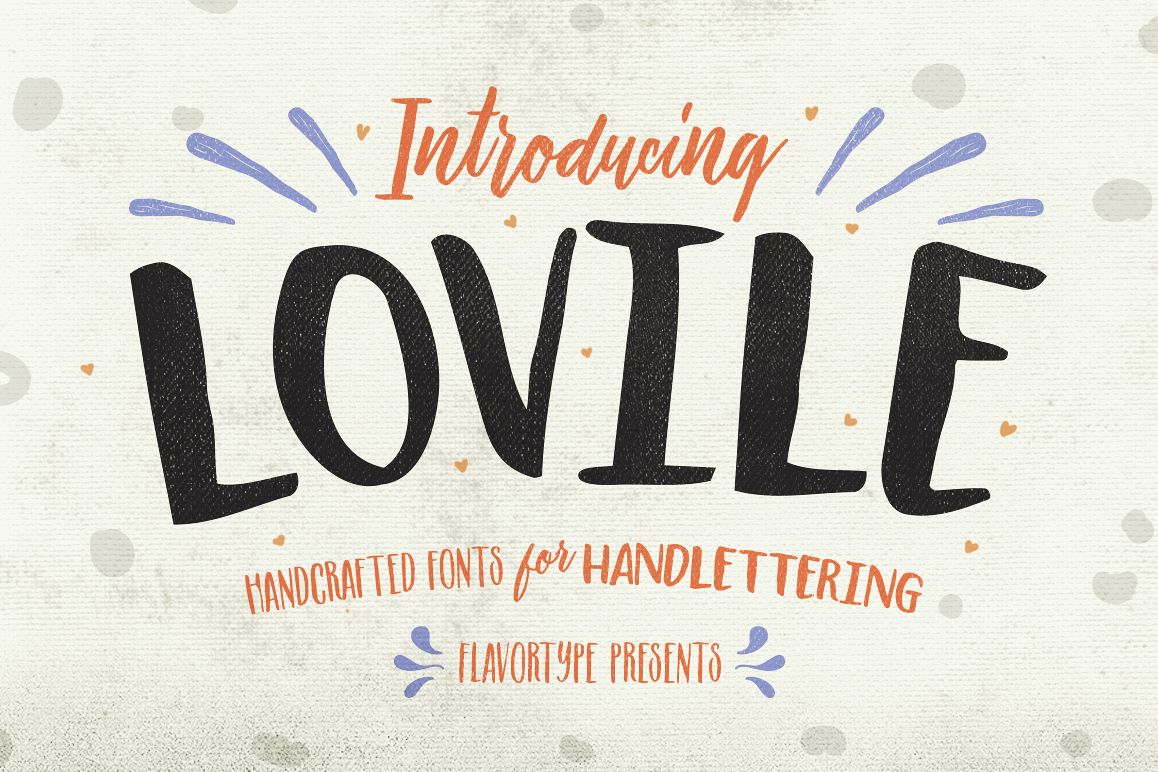
Lovile
Lovile Type Bold
Lovile Type
Lovile Type Medium
Turn Back in time :) Just releasing our brand new fonts LOVILELOVILE is special handcrafted fonts with based on lettering type ! Comes with triple font combination Bold, Condensed and Script, that will makes perfect choice for an hand lettered natural style project. That was an easy to mix and match with this fonts, this fonts bring an affection to design.so in order to welcoming christmas, it will be prefect choice for sweet and lovely word. :)If you have any question contact us.